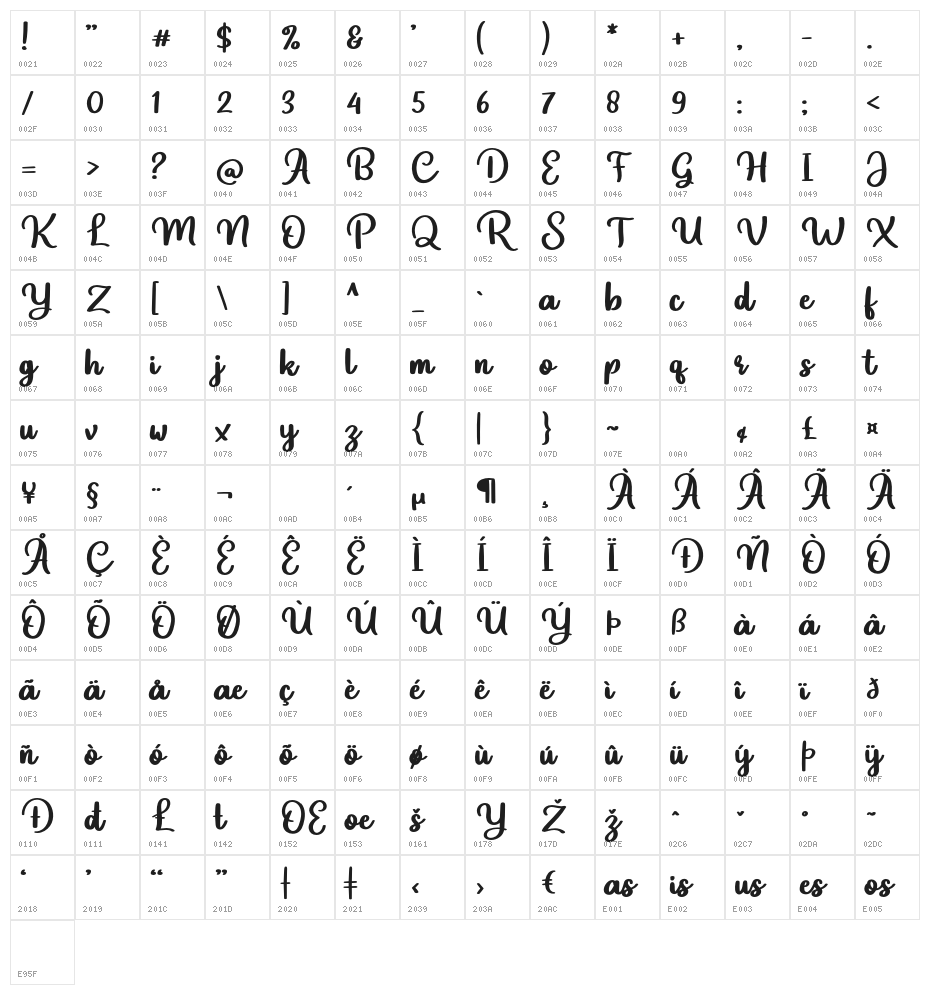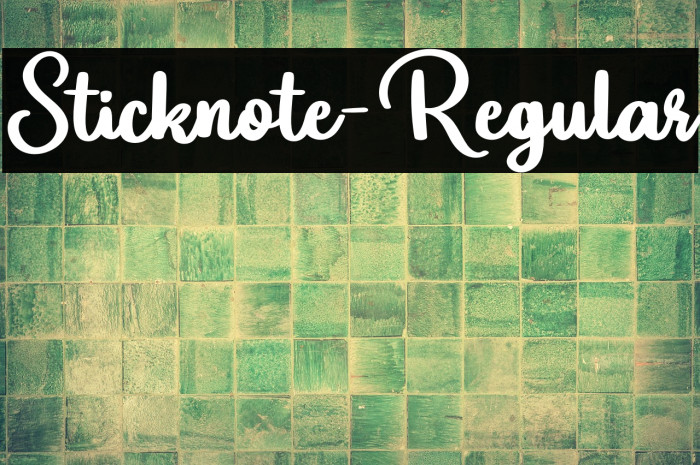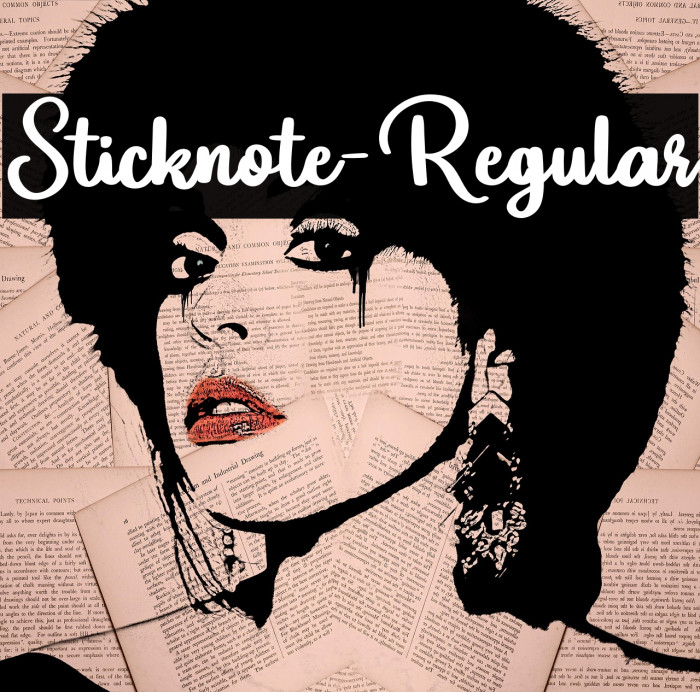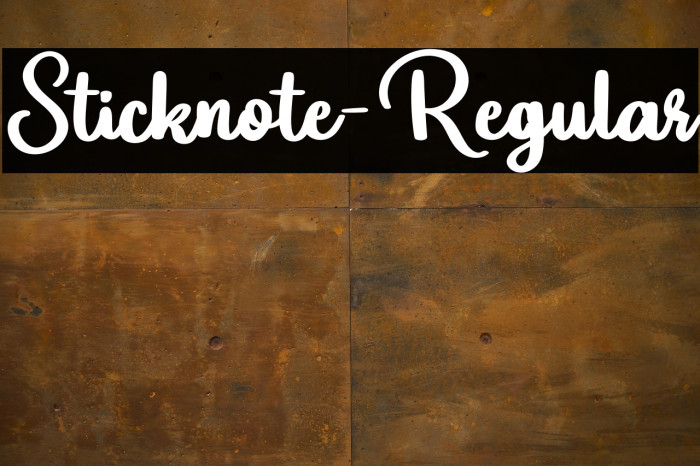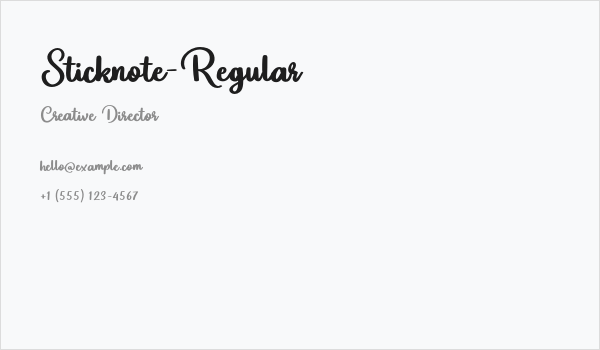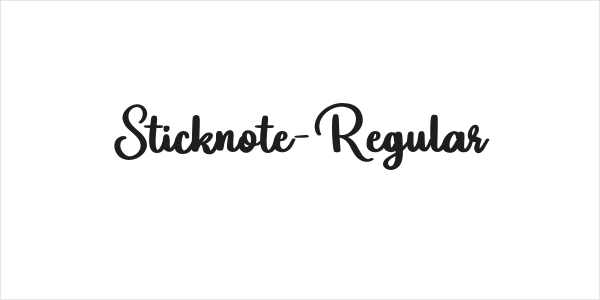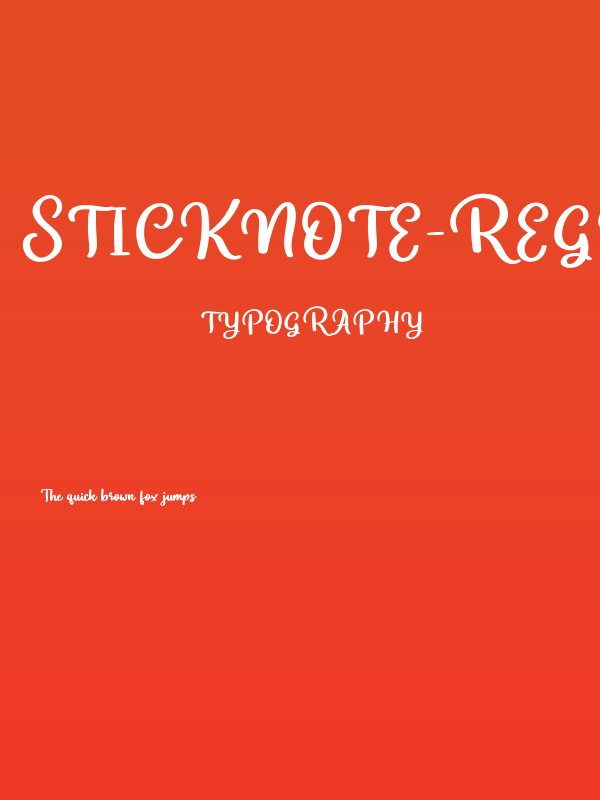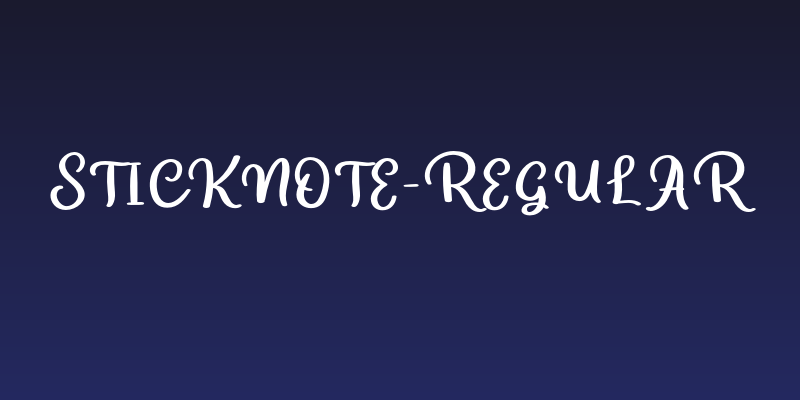
Sticknote-Regular Font
Sticknote-Regular Description
This font features a playful and casual script style, characterized by its smooth, flowing lines and rounded edges. The uppercase letters have a distinctive, slightly whimsical appearance with a consistent stroke width, while the lowercase letters maintain a cohesive look with a touch of elegance. The numerals are clear and easy to read, complementing the overall style. Special characters are well-integrated, maintaining the font's playful nature. This font is versatile, suitable for projects that require a friendly and approachable aesthetic.
| Overall Style | Casual, Playful |
| Use Case | Logos, Headlines, Invitations |
| Proposed Projects | Ideal for greeting cards, invitations, playful branding, and social media graphics. |